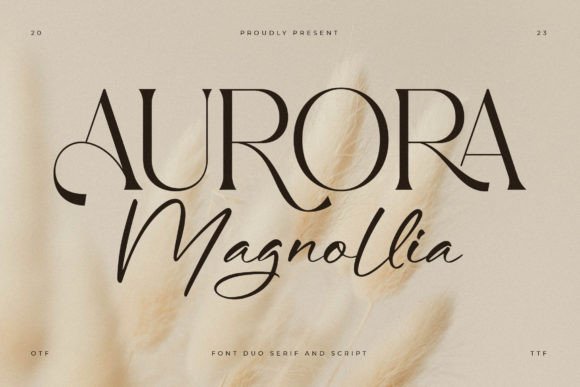
Aurora Magnolia Font: Elevate Your Designs with Timeless Elegance
In the world of typography, finding the perfect font that combines style, versatility, and timeless elegance can be a daunting task. However, the Aurora Magnolia Font Duo has emerged as a game-changer, offering a charming pair of fonts that seamlessly blend the classic touch of serifs with the artistic flow of a script. This duo is designed to cater to a wide range of creative projects, providing a sophisticated and refined feel to your typography.
Key Features of Aurora Magnolia Font Duo
- Classic Serifs and Artistic Script: The Aurora Magnolia Font Duo combines the traditional elegance of serifs with the modern flair of a script, making it perfect for projects that require a touch of sophistication.
- Versatility: This font duo is incredibly versatile, suitable for a variety of creative endeavors, from traditional to modern designs.
- Elegant Serifs and Graceful Script: The elegant serifs and graceful script of Aurora Magnolia add a touch of refinement to any design, making it ideal for projects that demand high-quality typography.
- Timeless and Refined Feel: The Aurora Magnolia Font Duo brings a timeless and refined feel to your typography, ensuring that your designs stand the test of time.
Ideal Design Applications for Aurora Magnolia Font Duo
The Aurora Magnolia Font Duo is perfect for a wide range of design applications, including:
- Branding and Logo Design: The elegant serifs and artistic script of Aurora Magnolia make it an excellent choice for branding and logo design, helping you create a lasting impression.
- Wedding and Event Stationery: The sophisticated and refined feel of this font duo makes it ideal for wedding and event stationery, adding a touch of elegance to your designs.
- Packaging Design: The versatility of Aurora Magnolia Font Duo makes it perfect for packaging design, allowing you to create eye-catching and memorable packaging.
- Digital Media: This font duo is also suitable for digital media, including social media graphics, website headers, and more.
Typography Tips for Using Aurora Magnolia Font Duo
To get the most out of the Aurora Magnolia Font Duo, consider the following typography tips:
- Mix and Match: Experiment with combining the serif and script fonts to create visually appealing typography.
- Pay Attention to Font Sizes: Ensure that your font sizes are harmonious and easy to read, using the serif font for body text and the script font for headings.
- Adjust Line Spacing: Adjust the line spacing to create a clear and readable typography, especially for body text.
- Use Colors Wisely: Select colors that complement the elegance of the Aurora Magnolia Font Duo, using subtle color variations to add depth to your design.
Pairing Aurora Magnolia Font Duo with Other Fonts
While the Aurora Magnolia Font Duo is stunning on its own, pairing it with other fonts can add an extra layer of creativity to your designs. Here are some font pairing suggestions:
- Montserrat: Pair the Aurora Magnolia Font Duo with Montserrat for a modern and elegant look.
- Lato: Combine the Aurora Magnolia Font Duo with Lato for a sophisticated and refined feel.
- Playfair Display: Pair the Aurora Magnolia Font Duo with Playfair Display for a luxurious and elegant look.
The Aurora Magnolia Font Duo is a versatile and elegant font pair that can elevate your designs to new heights. With its classic serifs and artistic script, this duo offers a timeless and refined feel that’s perfect for a wide range of creative projects. By following the typography tips and font pairing suggestions outlined in this article, you can unlock the full potential of the Aurora Magnolia Font Duo and create stunning designs that leave a lasting impression.
- Is the Aurora Magnolia Font Duo suitable for body text? While the script font is best used for headings, the serif font can be used for body text.